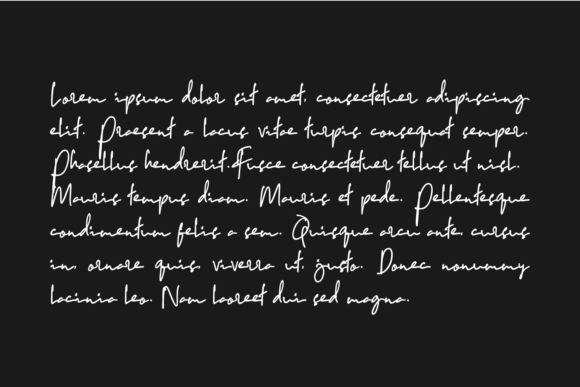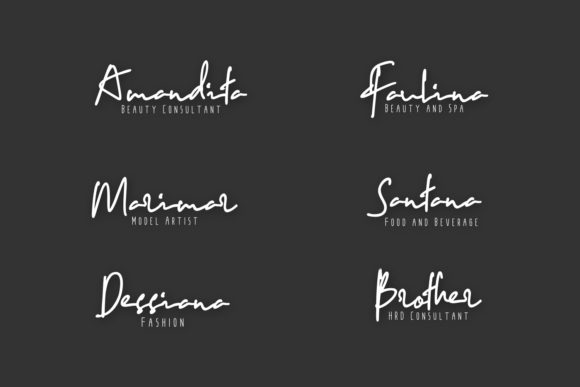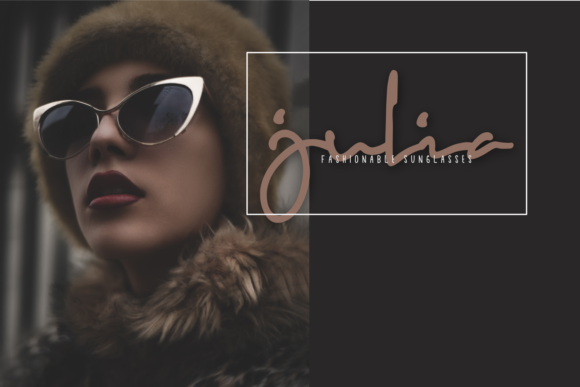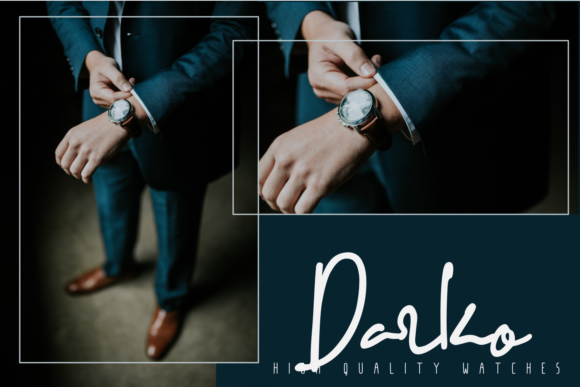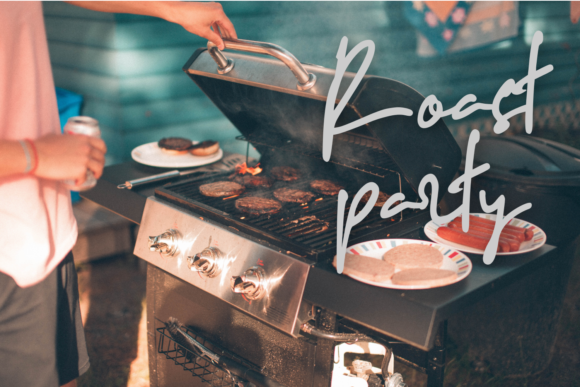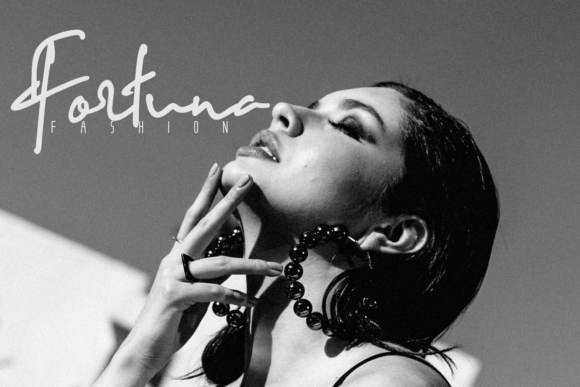
The Charming Copalanga Font: A Designer’s New Best Friend
I’ll never forget the time I was working on a whimsical craft project for a client who wanted a font that was both playful and elegant. I scoured the internet for hours, trying out font after font, but nothing seemed quite right. That was until I stumbled upon the Copalanga font. Its light and charming script with a cute feel instantly won me over, and I knew I had found the perfect fit for my project.
A First Impression: What I Love About Copalanga
So, what makes Copalanga so special? Here are a few things that I absolutely love about this font:
- ✨ Its timeless authenticity: Copalanga has a classic feel that never goes out of style.
- ✅ Light and charming script: Perfect for adding a touch of whimsy to any project.
- 💫 Highly legible: Even at small sizes, Copalanga remains easy to read.
- 🎨 Versatile: Works well for a variety of projects, from crafts to digital designs.
An Honest Review: The Not-Perfect-but-Still-Great Parts
No font is perfect, and Copalanga has a few small quirks to be aware of:
- 🤔 Limited use of uppercase letters: While the lowercase letters are beautifully designed, the uppercase letters are a bit more limited in their use.
- ⚠️ Not ideal for body text: While legible, Copalanga is best used for headings or titles rather than large blocks of text.
While the exact origins of Copalanga are unclear, it’s easy to imagine that it was inspired by traditional craftsmanship and a love of beautiful typography. Perhaps the designer was inspired by vintage letters and wanted to create a font that captured the essence of a bygone era.
| Font Name | Copalanga Font |
| Author | Mozyen Studio |
| What is Copalanga best used for? | Copalanga is best used for headings, titles, and other display text where a touch of elegance and whimsy is desired. |
| Is Copalanga suitable for body text? | While Copalanga is legible, it’s not ideal for large blocks of body text. It’s best used for shorter sections of text. |